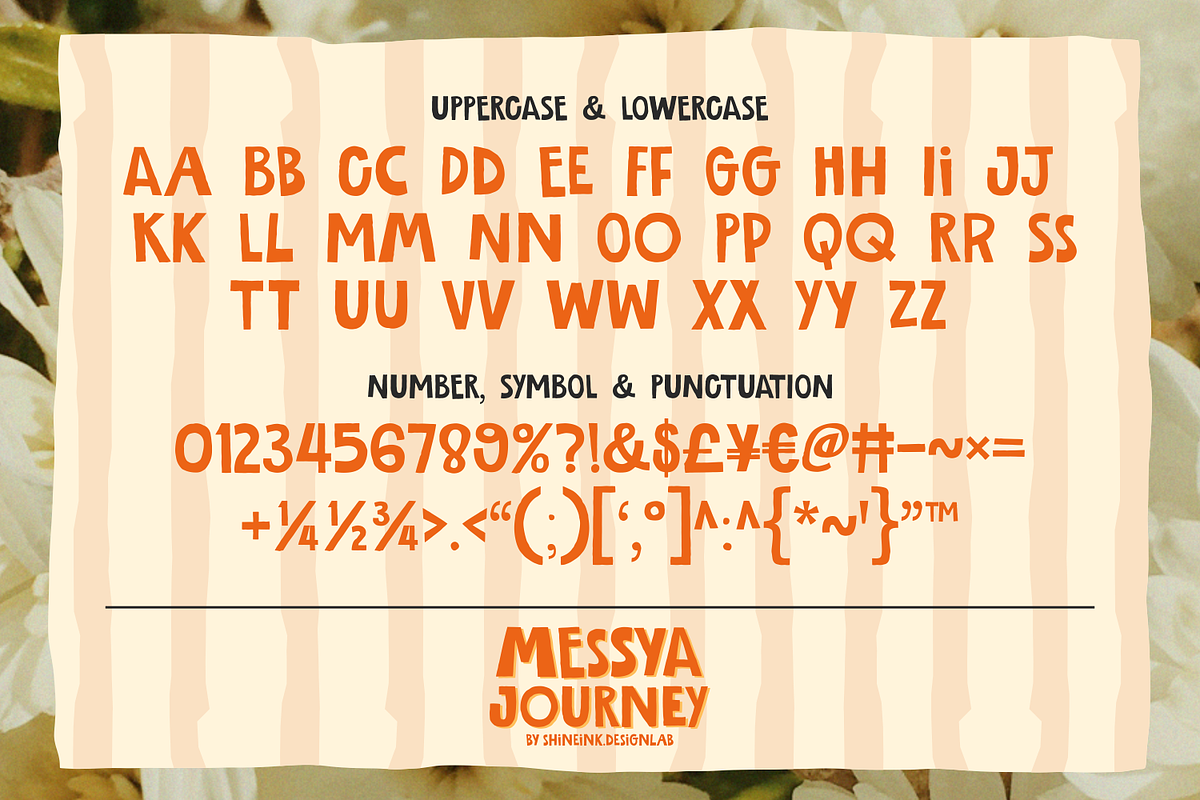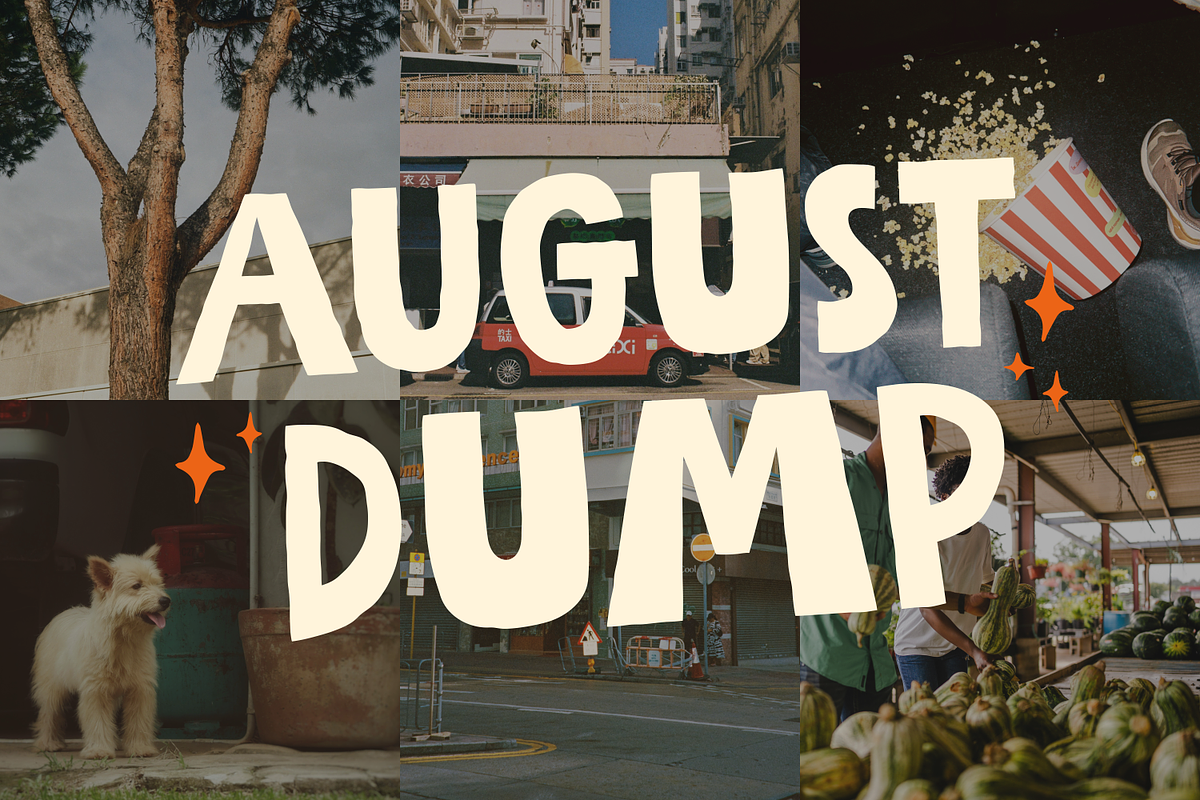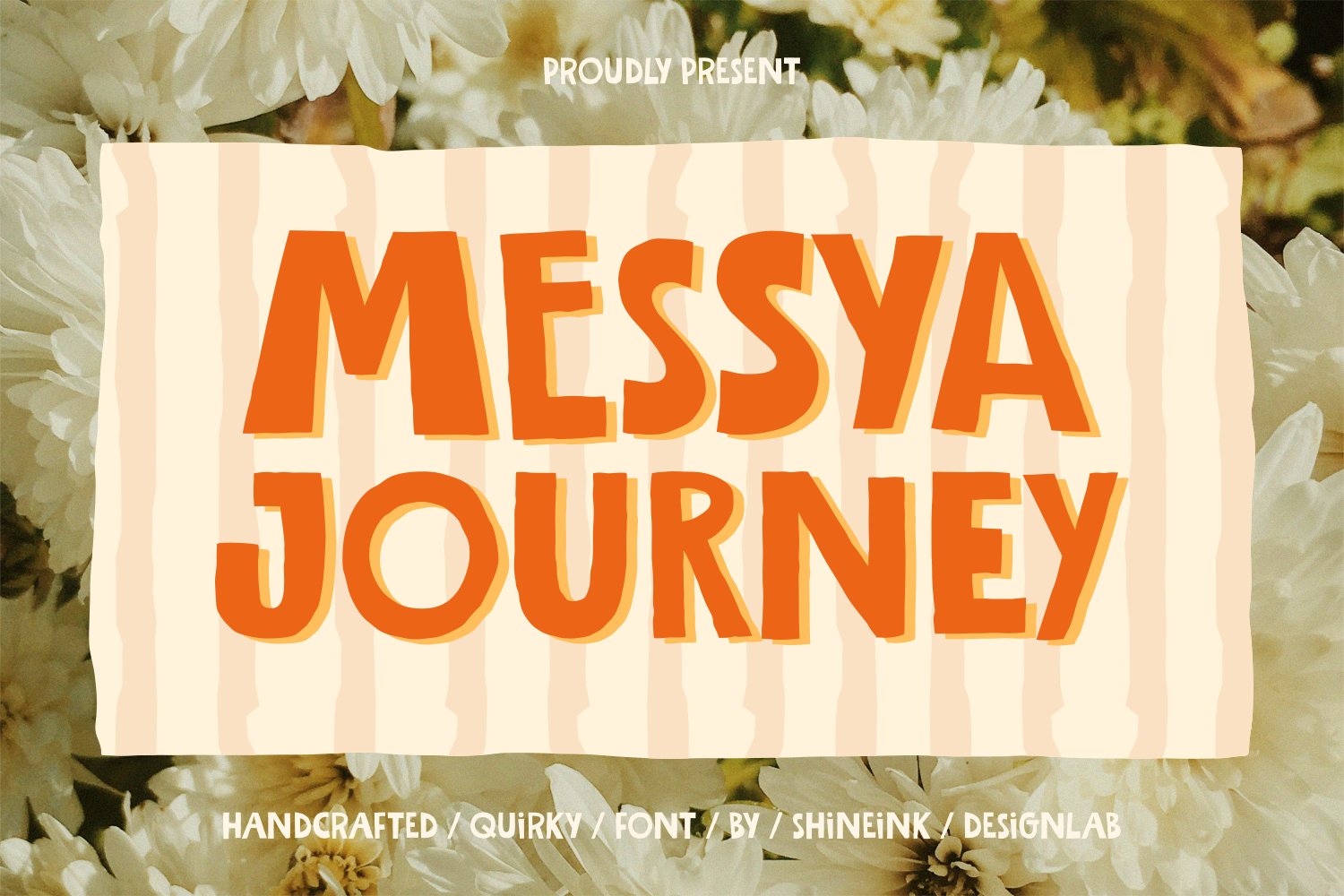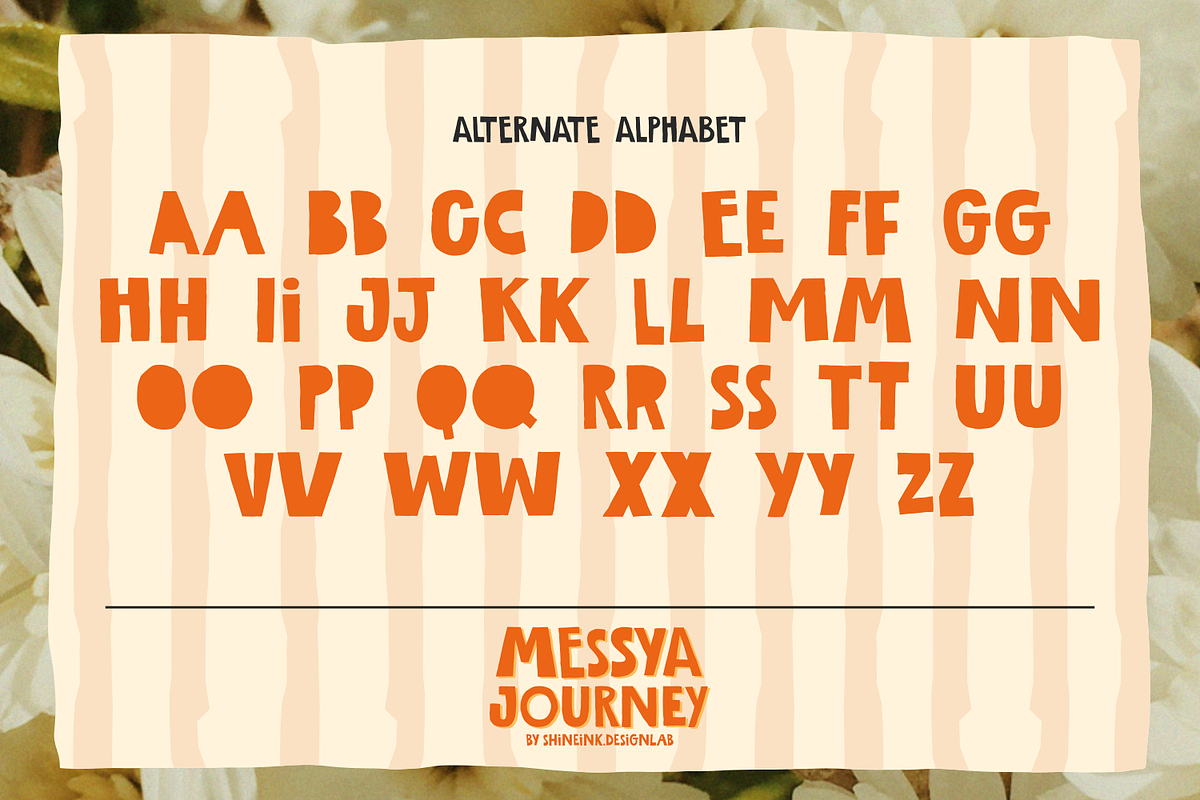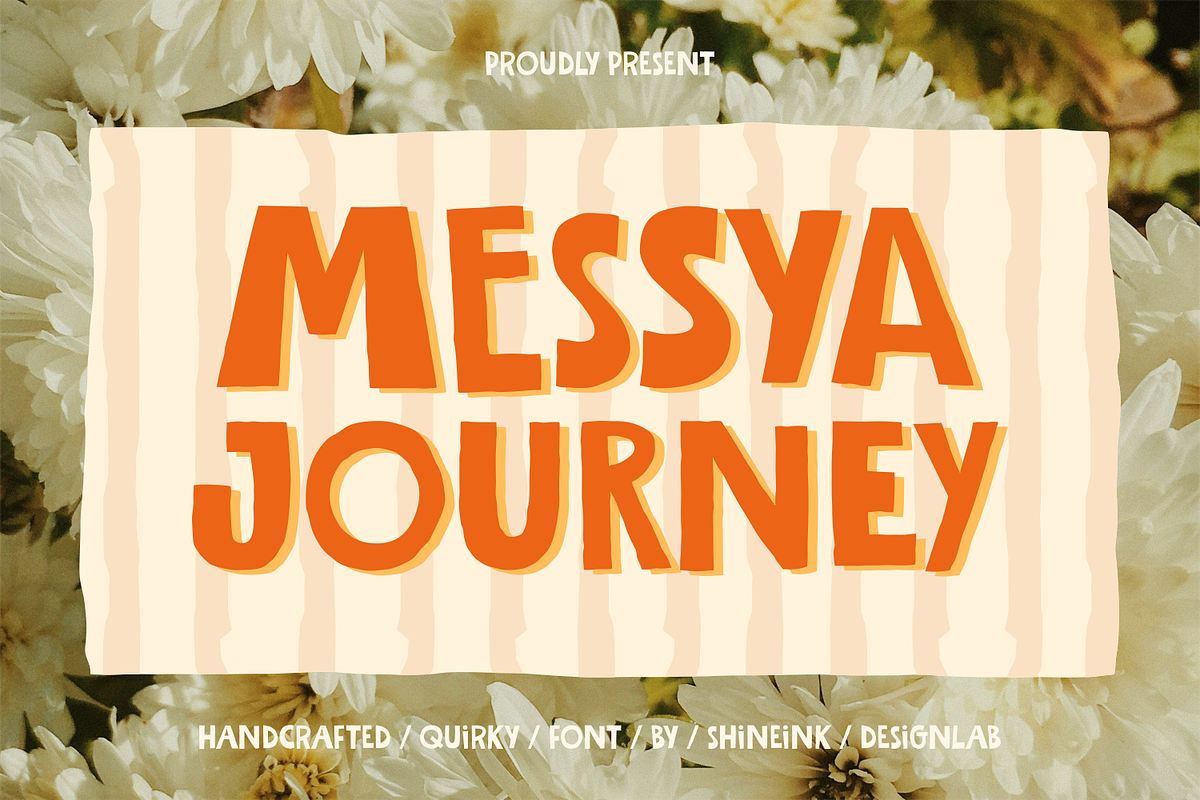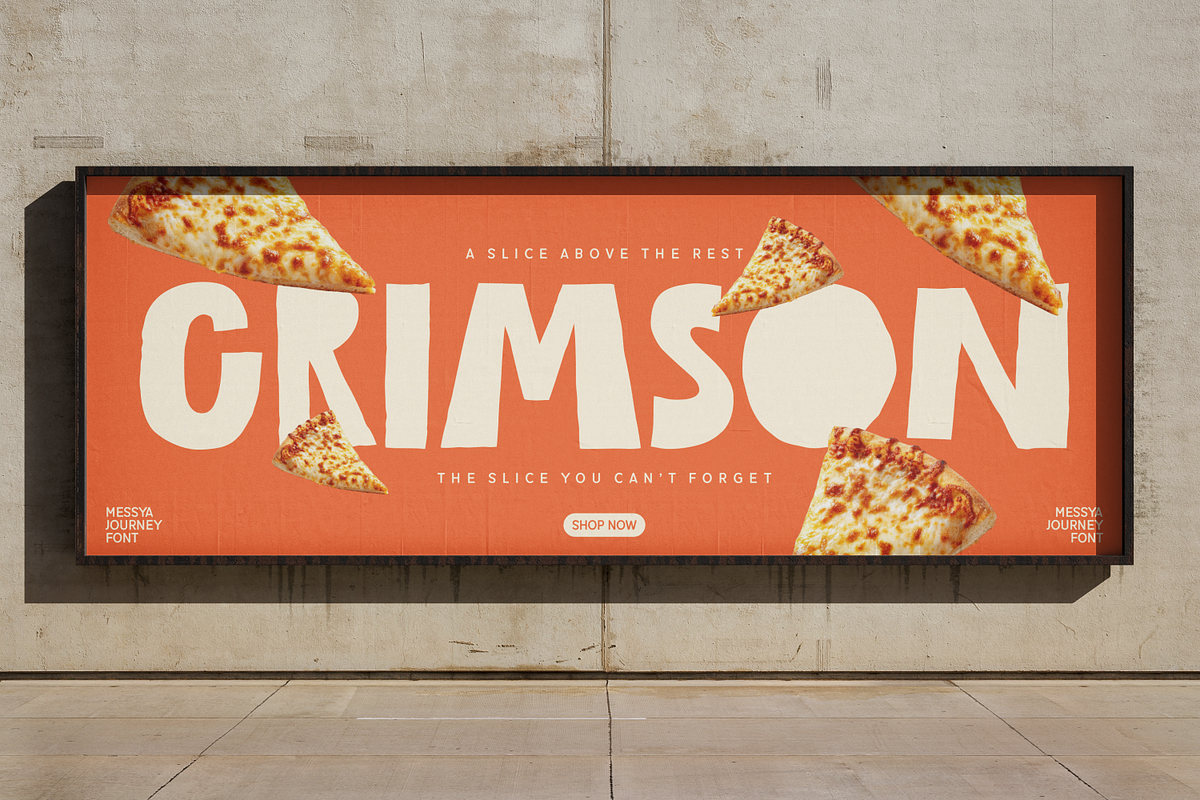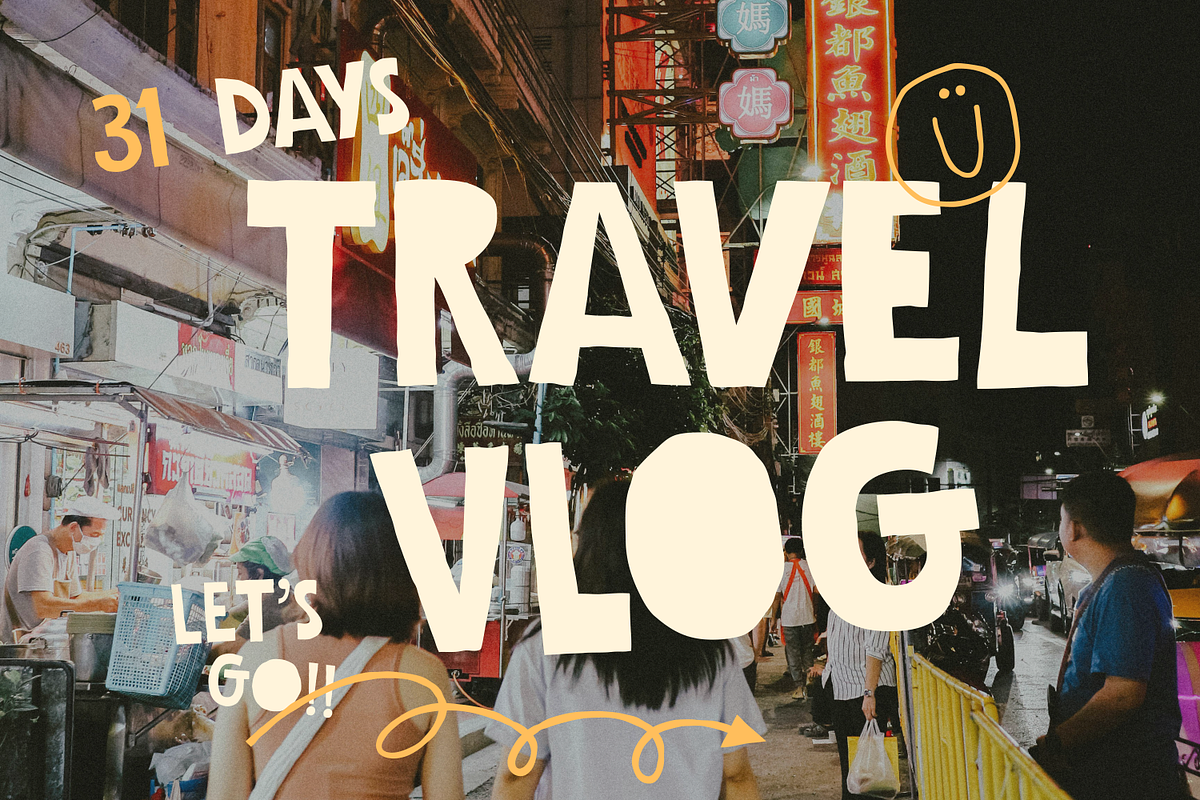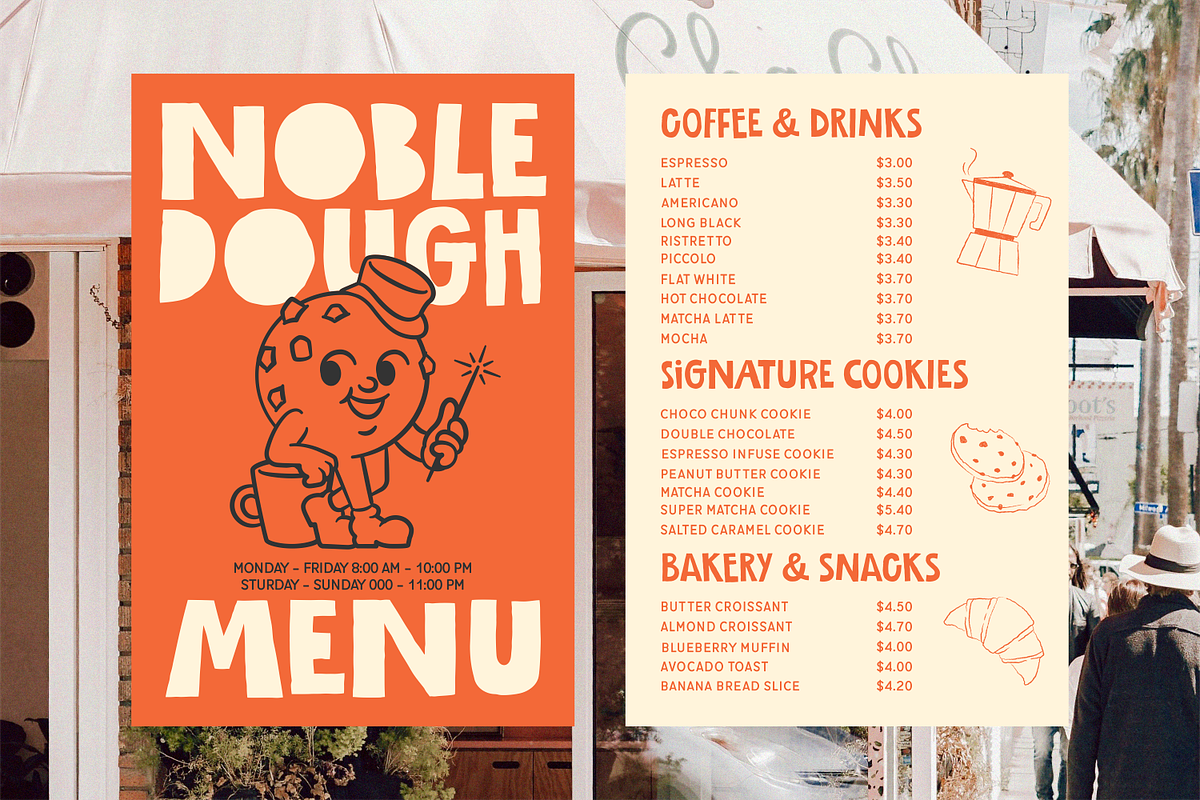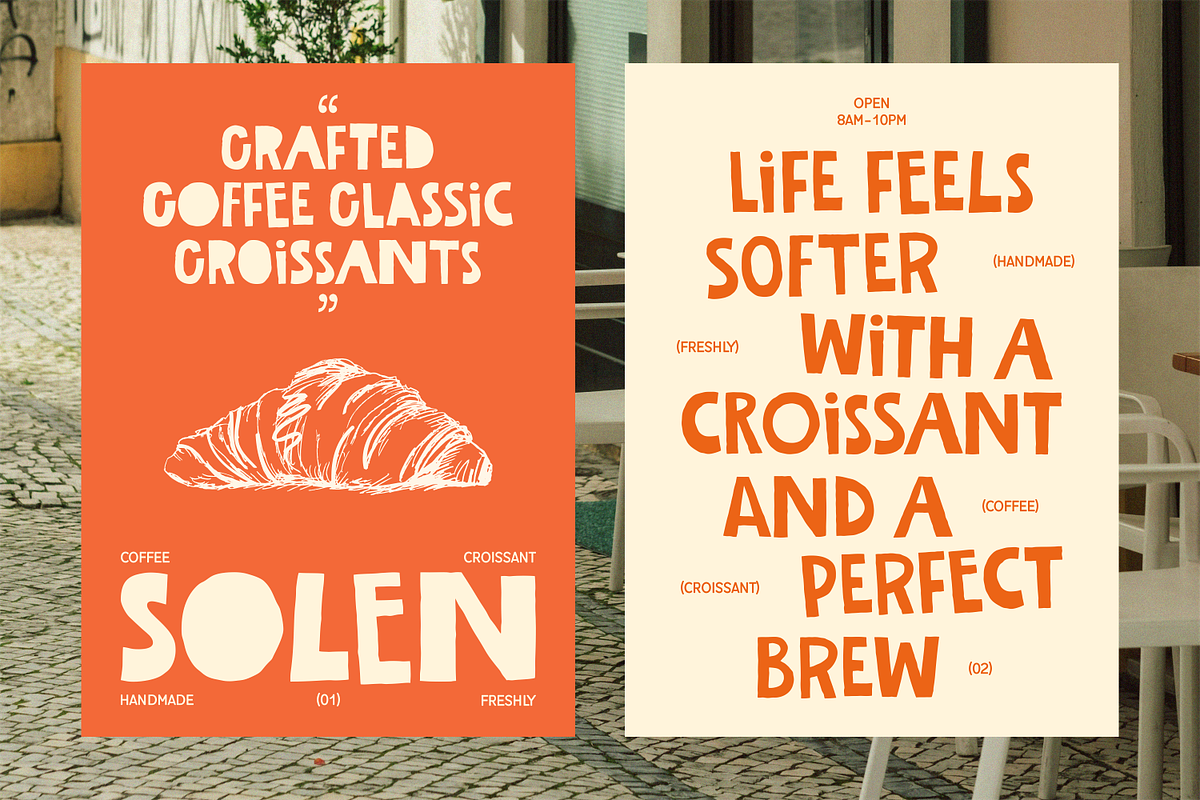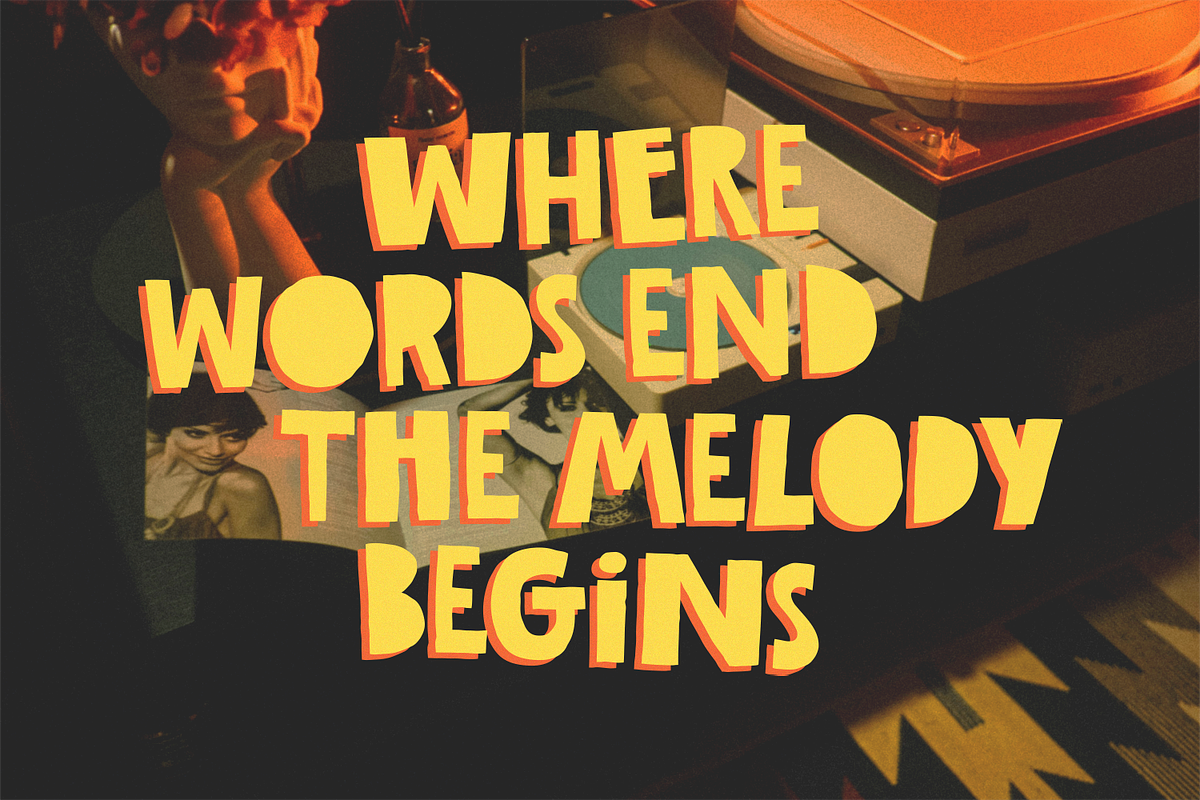
Messya Journey – Quirky Display Font
Messya Journey – Handcrafted Quirky Font
I'm present to you, Handcrafted Quirky Font, called Messya Journey!
Messya Journey is a joyful handcrafted display font designed to bring warmth, creativity, and a sense of playful adventure into your work. Inspired by carefree moments, and the beauty of imperfect handmade lettering, this font feels lively, friendly, and full of personality.
Each letter in Messya Journey is carefully crafted with soft curves and slightly irregular forms, creating a natural handwritten feel that looks organic and expressive. The bold shapes make it stand out instantly, while the playful rhythm keeps it approachable and fun—perfect for designs that want to feel human, cheerful, and memorable.
This font shines beautifully in a wide range of creative projects, from eye-catching headlines to charming brand identities. Whether you’re working on a lifestyle brand, children’s content, cozy café branding, or colorful packaging, Messya Journey adds a warm and inviting character that connects emotionally with your audience.
- Lowercase and Uppercase
- Multiple Languages Supported
- Alternate Alphabet Uppercase & Lowercase